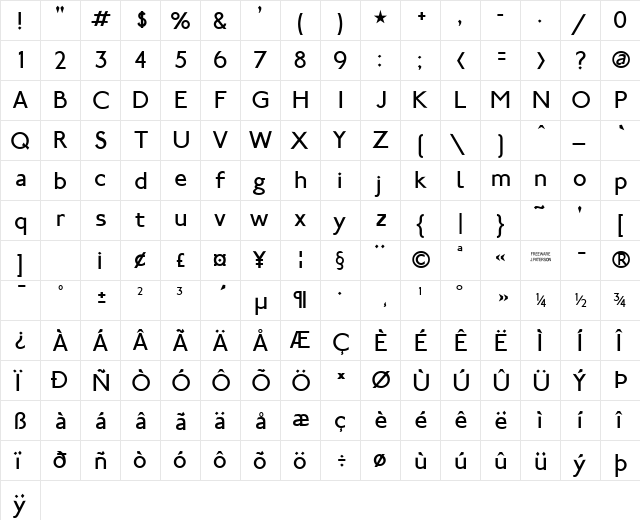
London Tube Normal
Design Context for London Tube Typeface
London Tube offers clean, dependable letterforms without strong stylistic allegiance, making it a practical choice for designers who need flexibility.